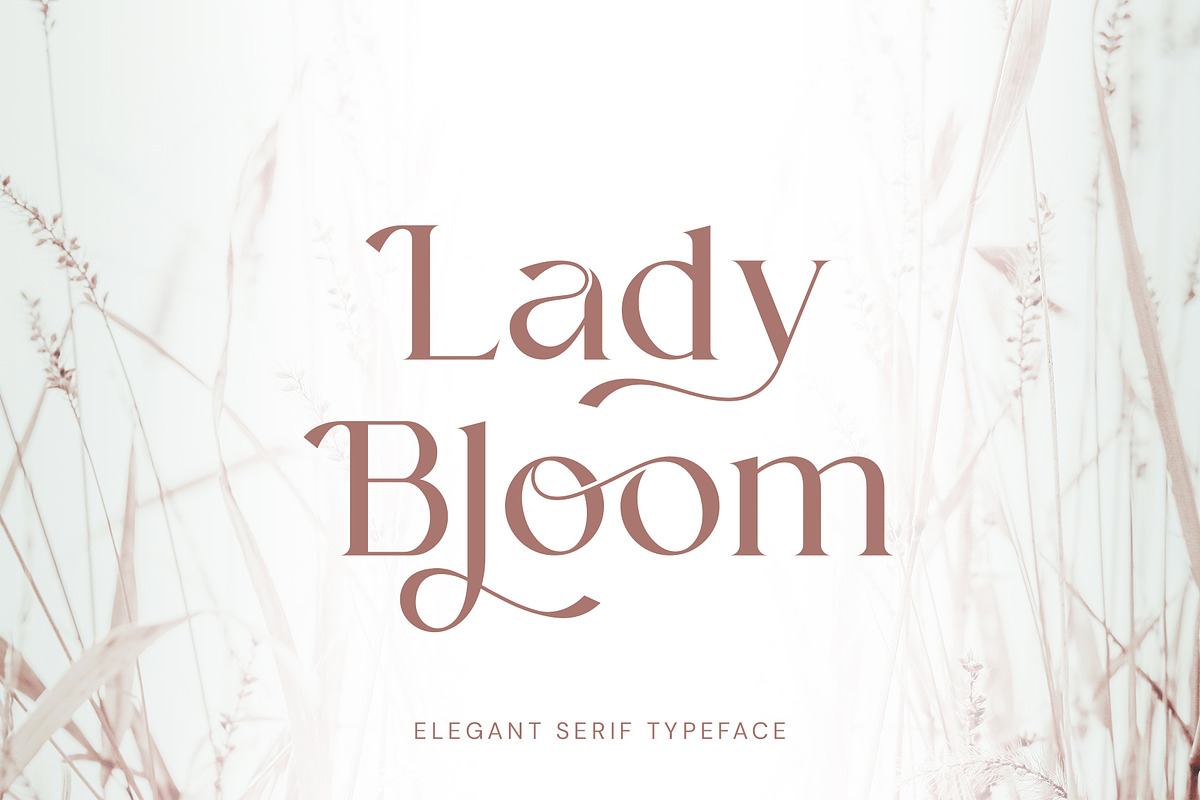
Lady Bloom Serif Font Free Download
Lady Bloom Serif Font Free Download is a graceful and feminine typeface that blends classic serif elegance with soft, romantic curves. Perfect for wedding invitations, beauty branding, fashion editorials, packaging, and boutique logos, Lady Bloom adds a touch of refinement and charm to any design.
Its delicate details and high contrast strokes create a luxurious feel that’s both timeless and modern. Whether you're building a stylish brand or designing dreamy social media content, Lady Bloom brings sophistication and visual appeal to your typography.